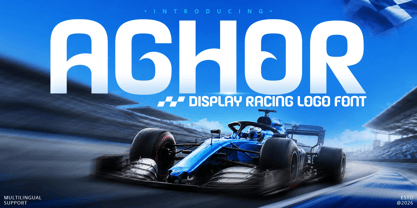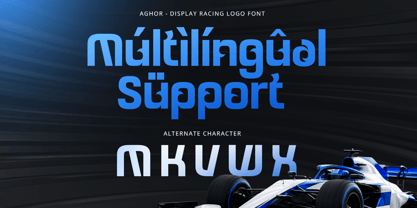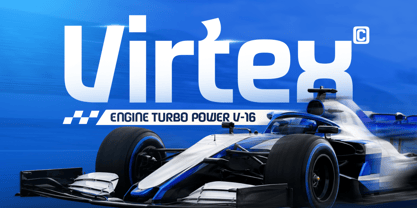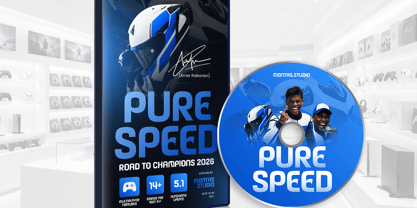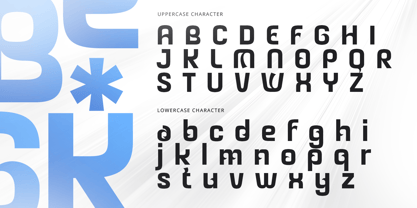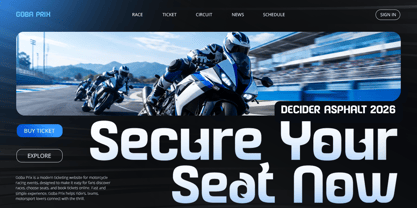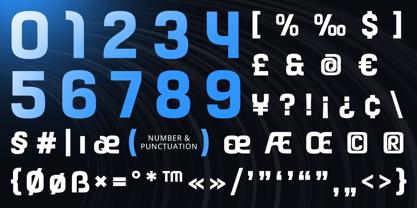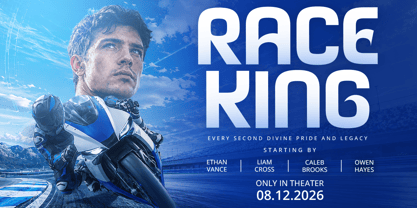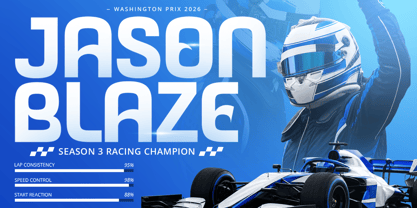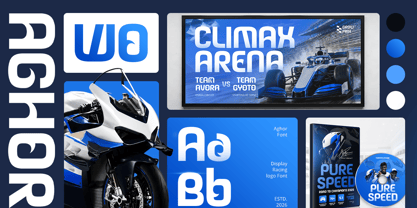
Aghor
Aghor – Racing Sport Logo Font is a bold racing sport font designed for motorsport branding, automotive logos, esports identities, and high-performance visual design. Inspired by the speed, precision, and adrenaline of competitive racing, Aghor delivers an aggressive typographic style that brings power and motion to every project.
Featuring bold letterforms, aerodynamic angles, and dynamic racing-inspired details, Aghor creates a strong visual identity built for speed and competition. The modern design balances impact with readability, making it ideal for logos, headlines, promotional graphics, and branding that demand attention.
Whether you're designing a motorsport logo, building an automotive brand, creating esports graphics, or developing sports marketing materials, Aghor provides the performance-driven typography needed to make your brand stand out.
Aghor is Perfect For
• Motorsport and racing team branding
• Automotive logo and identity design
• Sports branding and performance campaigns
• Esports and gaming visual identities
• Racing event posters and promotional graphics
• Dynamic headlines and display typography
• High-performance marketing materials
• Modern branding and visual communication
Whether you're creating a motorsport logo, developing an automotive brand, designing esports graphics, or producing high-energy promotional campaigns, Aghor delivers the speed, strength, and competitive character of a professional racing sport logo font.